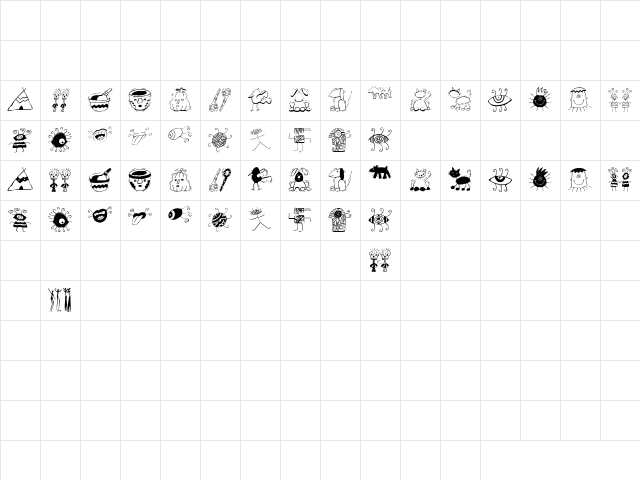
Complete 20thCenturyTwo Regular glyph index. Displaying only characters natively supported by 20thCenturyTwo Regular font.
20thCenturyTwo is a composed and adaptable typeface that performs quietly and consistently across a wide range of design contexts.